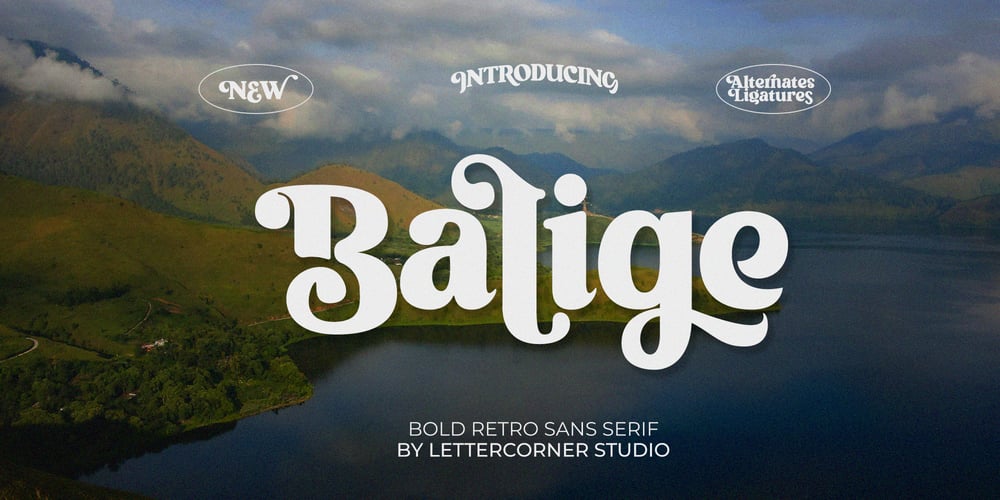
Balige Font Family was designed by Muhammad Afif Ersya and published by Mevstory Studio. Balige contains 1 styles and family package options. Balige, an elegant and stylish font that will make your design look priceless. A graceful typeface, with a perfect shape and ligatures will make your design look graceful. This typeface is a perfect for a luxury logo, classy editorial designs, fashion brand and promotion, and much more. Get Goldage to make your design as pure as Gold